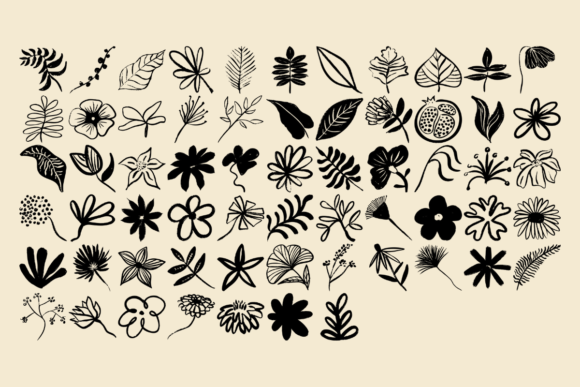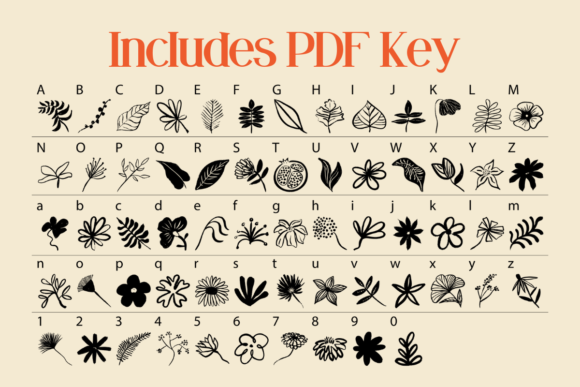
Introducing Hand Drawn Floral Font: Elevate Your Designs with a Touch of Whimsy
Are you a designer or crafter looking for a unique and versatile font to add a personal touch to your creations? Look no further than Hand Drawn Floral Font, a cool and useful dingbats font that combines the perfect blend of funky, retro, boho, and modern styles. With its distinctive charm and effortless elegance, this font is sure to enhance the authenticity of each of your designs.
The Allure of Hand Drawn Floral Font
Hand Drawn Floral Font is more than just a font – it’s a design statement. Its hand-drawn floral motifs are carefully crafted to add a touch of whimsy and playfulness to any project. Whether you’re working on a DIY craft, a branding campaign, or a digital design, this font is sure to make your creations stand out from the crowd.
Key Features of Hand Drawn Floral Font
- Funky and Retro Vibes: Hand Drawn Floral Font boasts a funky and retro aesthetic that’s perfect for designers who want to add a vintage touch to their work.
- Boho Chic: The font’s bohemian charm makes it ideal for crafters and designers who specialize in boho-inspired designs.
- Modern Twist: Despite its retro and boho roots, Hand Drawn Floral Font has a modern edge that ensures it will work seamlessly in a variety of design contexts.
- Dingbats Font: As a dingbats font, Hand Drawn Floral Font features a range of decorative motifs, including floral patterns, leaves, and other nature-inspired designs.
Uses for Hand Drawn Floral Font
So, how can you use Hand Drawn Floral Font in your designs? The possibilities are endless! Here are a few ideas to get you started:
- DIY Crafts: Add a personal touch to your DIY crafts, such as scrapbooking, card making, and journaling, with Hand Drawn Floral Font.
- Branding and Packaging: Use the font to create unique and eye-catching branding and packaging designs that will help your products stand out.
- Digital Designs: Incorporate Hand Drawn Floral Font into your digital designs, such as social media graphics, blog posts, and website headers.
- Stationery and Invitations: Create beautiful and elegant stationery and invitations with Hand Drawn Floral Font.
Tips for Using Hand Drawn Floral Font
To get the most out of Hand Drawn Floral Font, here are a few tips to keep in mind:
- Experiment with Colors: Don’t be afraid to experiment with different colors and color combinations to find the perfect look for your design.
- Mix and Match: Combine Hand Drawn Floral Font with other fonts and design elements to create a unique and visually appealing design.
- Pay Attention to Scale: Make sure to adjust the scale of the font to suit your design needs.
Hand Drawn Floral Font is a versatile and charming dingbats font that’s perfect for designers and crafters who want to add a touch of whimsy and elegance to their creations. With its unique blend of funky, retro, boho, and modern styles, this font is sure to enhance the authenticity of each of your designs. So why wait? Download Hand Drawn Floral Font today and start creating beautiful and eye-catching designs that will leave a lasting impression!